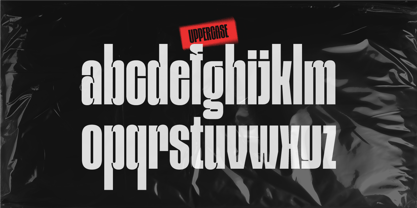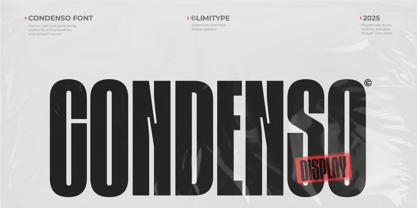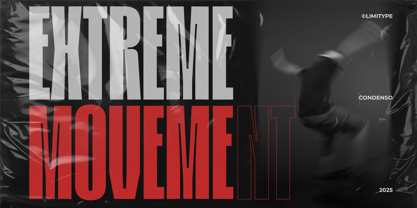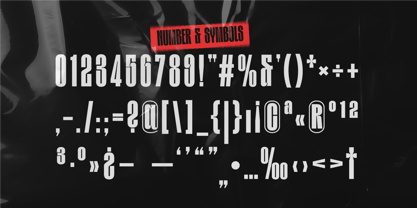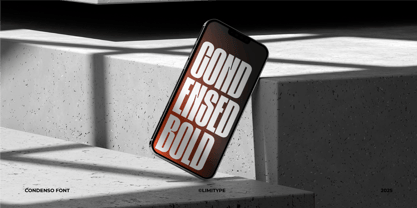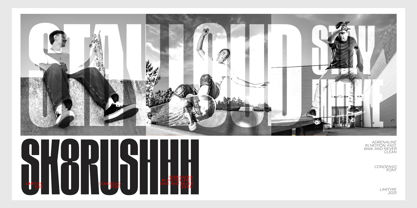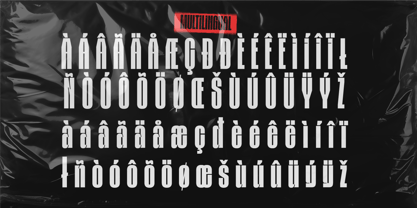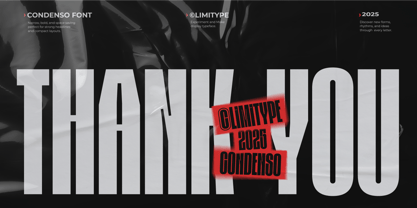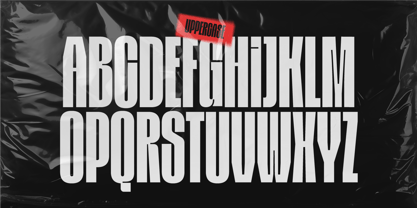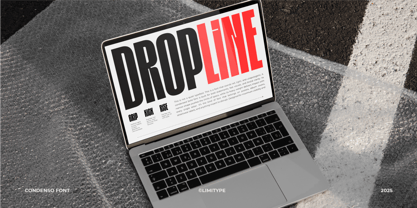
Condenso
The Condenso Font Family was designed by Muhammad Muammar and published by limitype. Condenso contains 1 styles. More about this family
Condenso is a modern condensed display font featuring a narrow form and distinctive inktraps, making it ideal for headlines, posters, urban themes, merchandise, and branding.
Condenso available with:
-Uppercase
-Lowercase
-Number
-Symbol
-Multilingual